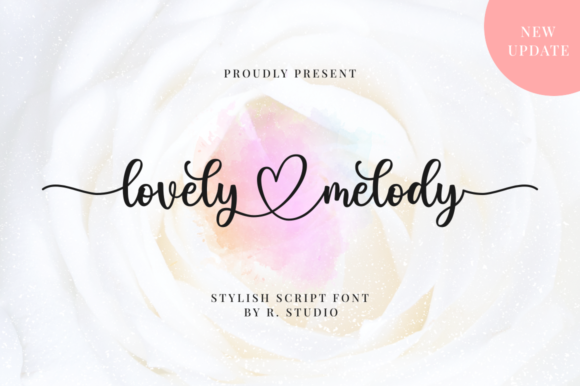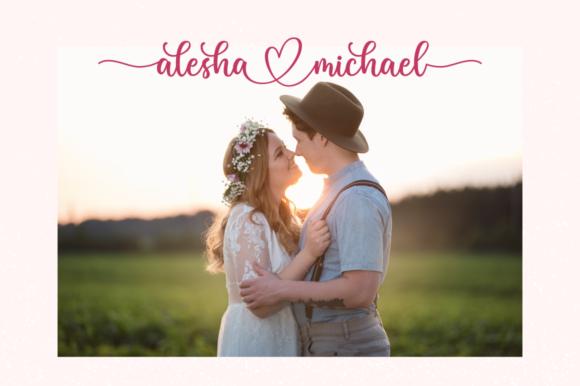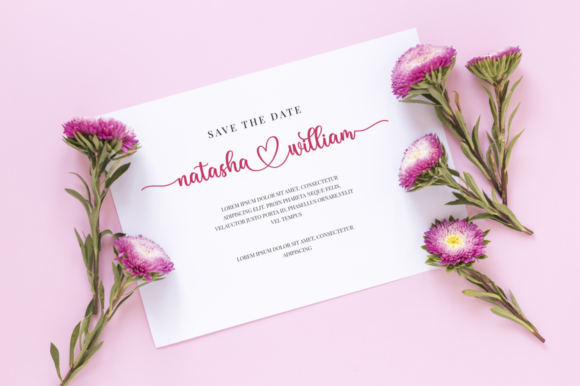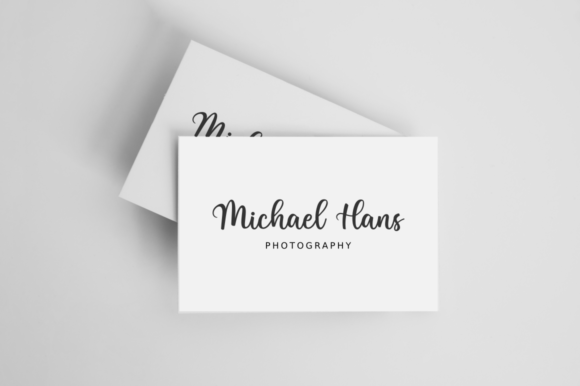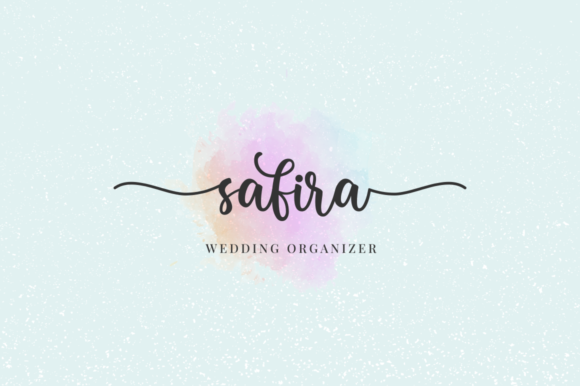
Lovely Melody Font
About Lovely Melody Font
Lovely Melody is a stylish script font that is suitable for branding, wedding invitations, and other romantic projects. Fall in love with it and bring your creative ideas to the highest levels!